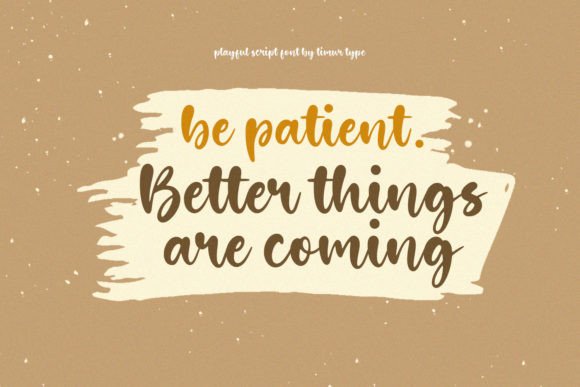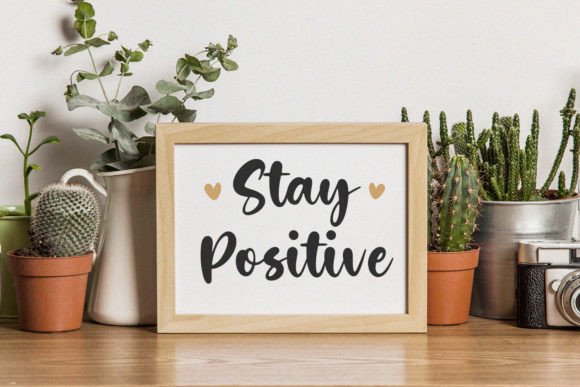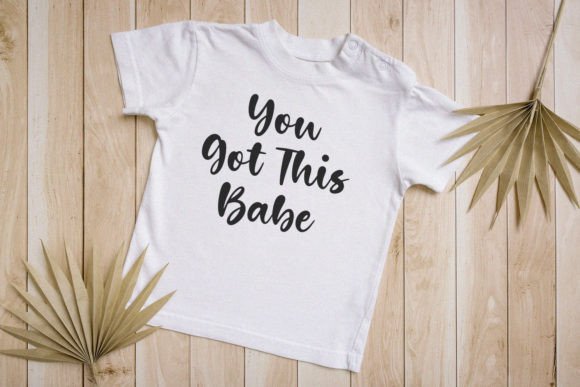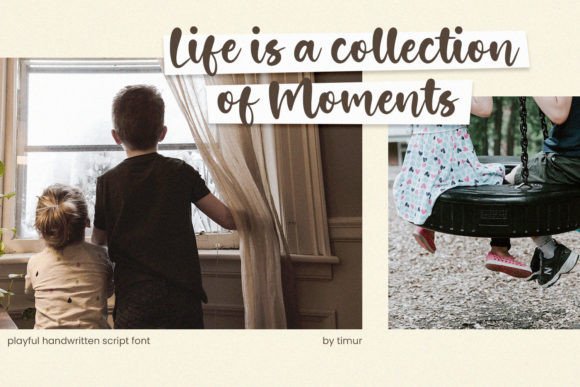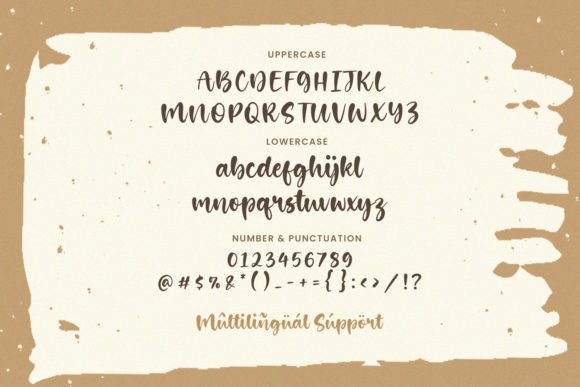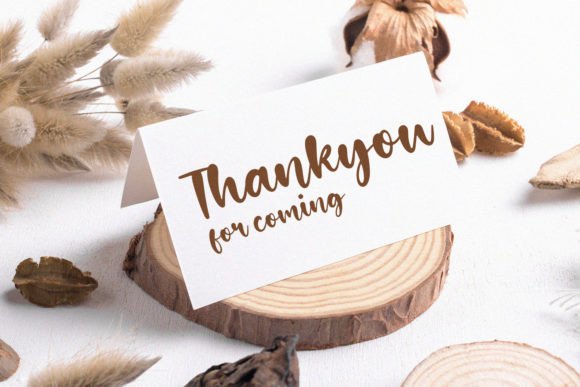
Dimetone Font: The Perfect Handwritten Script for Your Creative Projects
Are you tired of using the same old fonts for your creative projects? Look no further than Dimetone, a beautiful handwritten script font that is sure to add a touch of elegance and sophistication to any design. In this article, we’ll take a closer look at Dimetone, its features, and how you can use it to take your designs to the next level.
What is Dimetone Font?
Dimetone is a carefully crafted handwritten script font that is designed to help you add a personal touch to your designs. With its unique and elegant lettering style, Dimetone is perfect for a wide range of creative projects, from product packaging and branding to magazines, social media, weddings, and more.
Whether you’re a designer, crafters, or DIY enthusiast, Dimetone is the perfect font for you. Its versatility and flexibility make it easy to use in a variety of contexts, and its high-quality design ensures that it will look great in any application.
Key Features of Dimetone Font
So what makes Dimetone so special? Here are just a few of the key features that set it apart:
- Handwritten script style: Dimetone has a beautiful, flowing handwritten script style that adds a touch of elegance and sophistication to any design.
- Unique lettering style: Each letter in Dimetone is carefully crafted to create a unique and distinctive look that is sure to stand out.
- High-quality design: Dimetone is designed with high-quality in mind, ensuring that it will look great in any application, from print to digital.
- Versatile: Dimetone is perfect for a wide range of creative projects, from product packaging and branding to magazines, social media, weddings, and more.
How to Use Dimetone Font in Your Designs
So how can you use Dimetone in your designs? Here are a few ideas to get you started:
- Product packaging: Add a touch of elegance and sophistication to your product packaging with Dimetone.
- Branding projects: Use Dimetone to create a unique and memorable brand identity for your business.
- Magazines and publications: Add a touch of personality and style to your magazine or publication with Dimetone.
- Social media: Use Dimetone to create eye-catching social media graphics and posts.
- Weddings and events: Add a touch of romance and elegance to your wedding or event invitations and decorations with Dimetone.
Tips for Getting the Most Out of Dimetone Font
Here are a few tips for getting the most out of Dimetone:
- Experiment with different colors and textures: Dimetone looks great in a variety of colors and textures, so don’t be afraid to experiment and find the combination that works best for your design.
- Use it sparingly: Dimetone is a bold and eye-catching font, so use it sparingly to add emphasis and interest to your design.
- Pair it with other fonts: Dimetone pairs well with a variety of other fonts, so don’t be afraid to experiment and find the perfect combination for your design.
Whether you’re looking to add a personal touch to your product packaging, create a unique brand identity, or simply add some style to your social media graphics, Dimetone is the perfect font for you. So go ahead, get creative, and see what amazing things you can do with Dimetone!